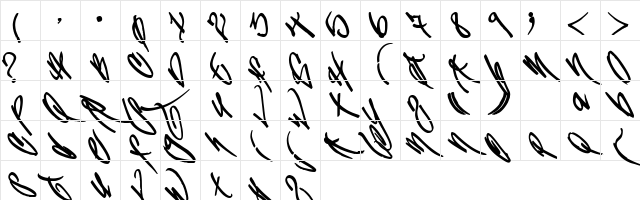
Complete SameGang Regular glyph index. Displaying only characters natively supported by SameGang Regular font.
SameGang is a composed and adaptable typeface that performs quietly and consistently across a wide range of design contexts.